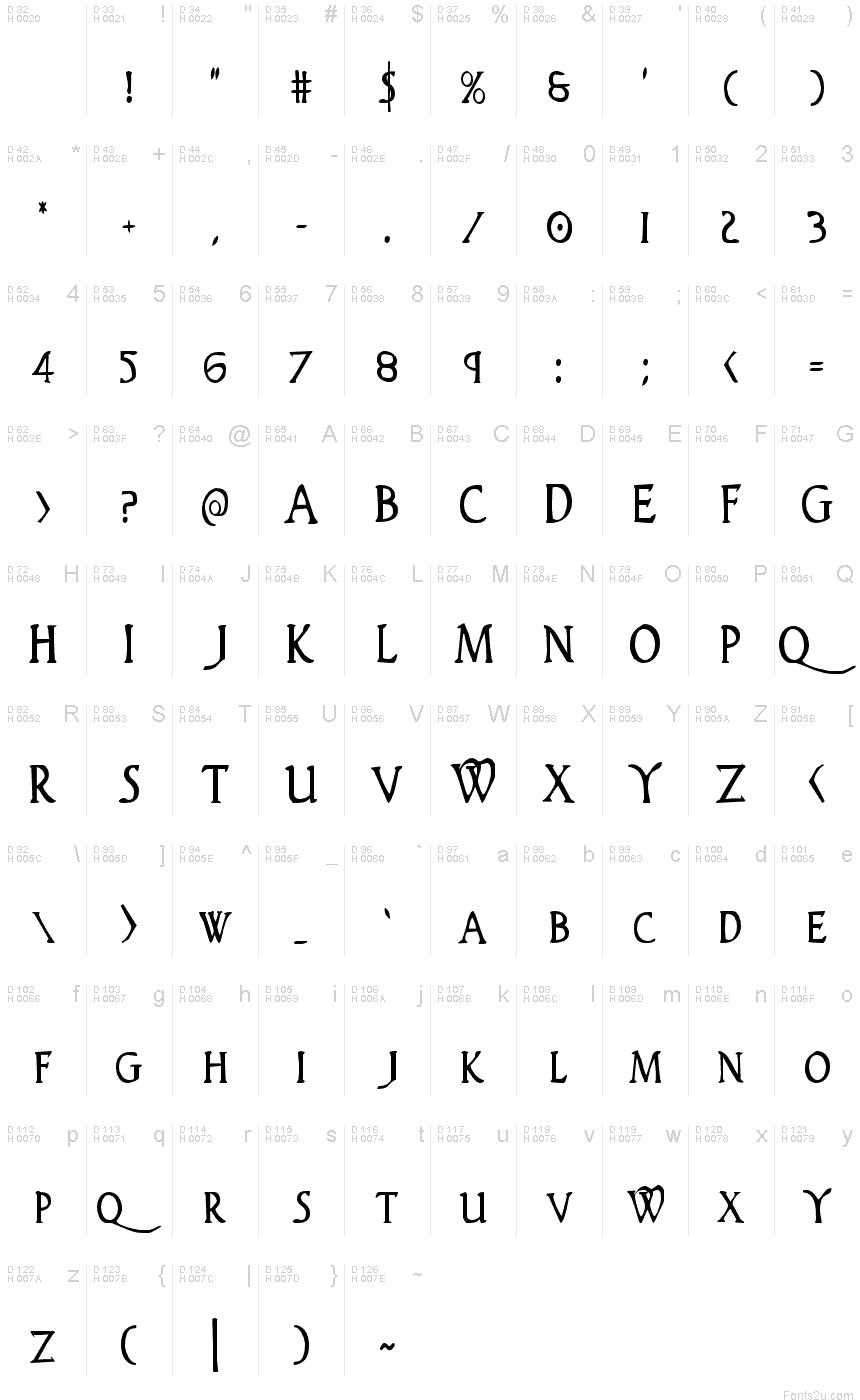
Woodgod Condensed, created by Iconian Fonts in 2012, is a free old-school display font with tall, tightly drawn letters and a hand-cut appearance. Sharp, flared tips punctuate the changing stroke widths, and uneven curves recall carved storybook lettering rather than polished classical type.
It speaks to audiences drawn to folklore and rustic craft. That carved irregularity makes convincing book covers, festival posters, and labels for artisan food or drink, especially when the lettering becomes part of an illustrated scene. In publishing, its narrow proportions and pointed details can give chapter openers or cover lines the look of a title cut into wood.